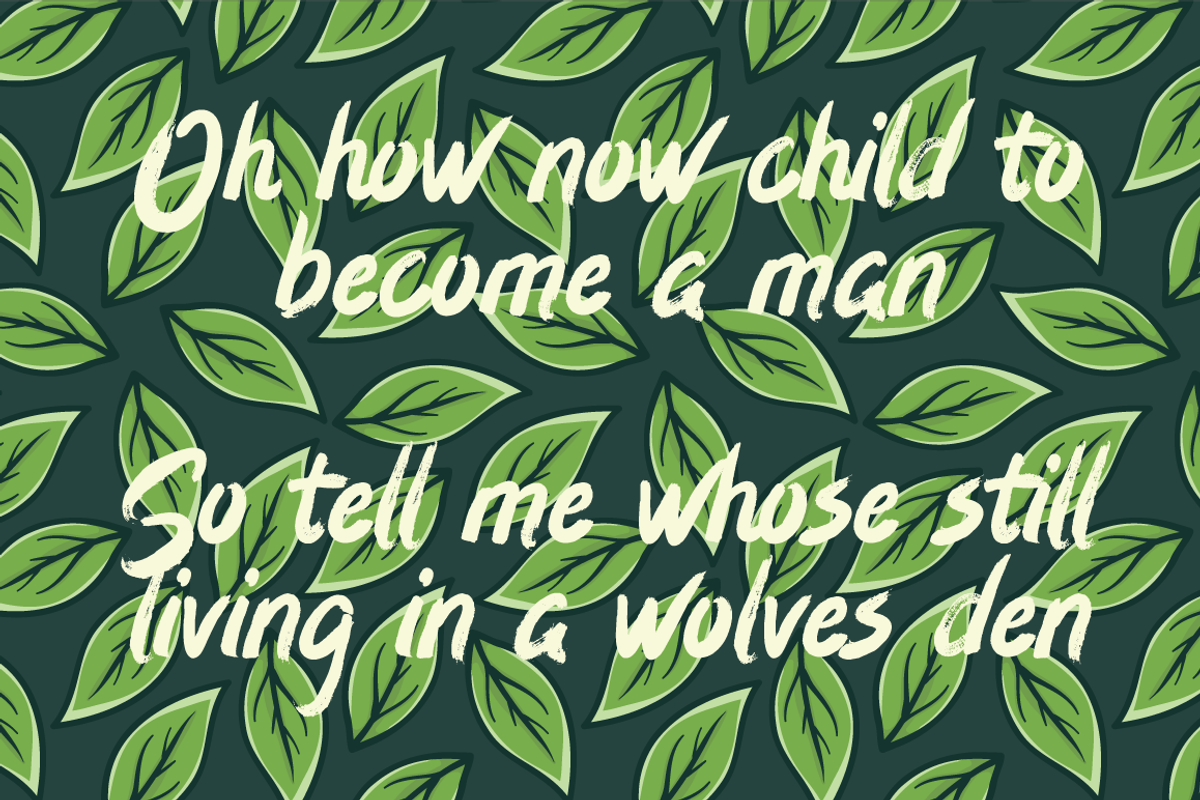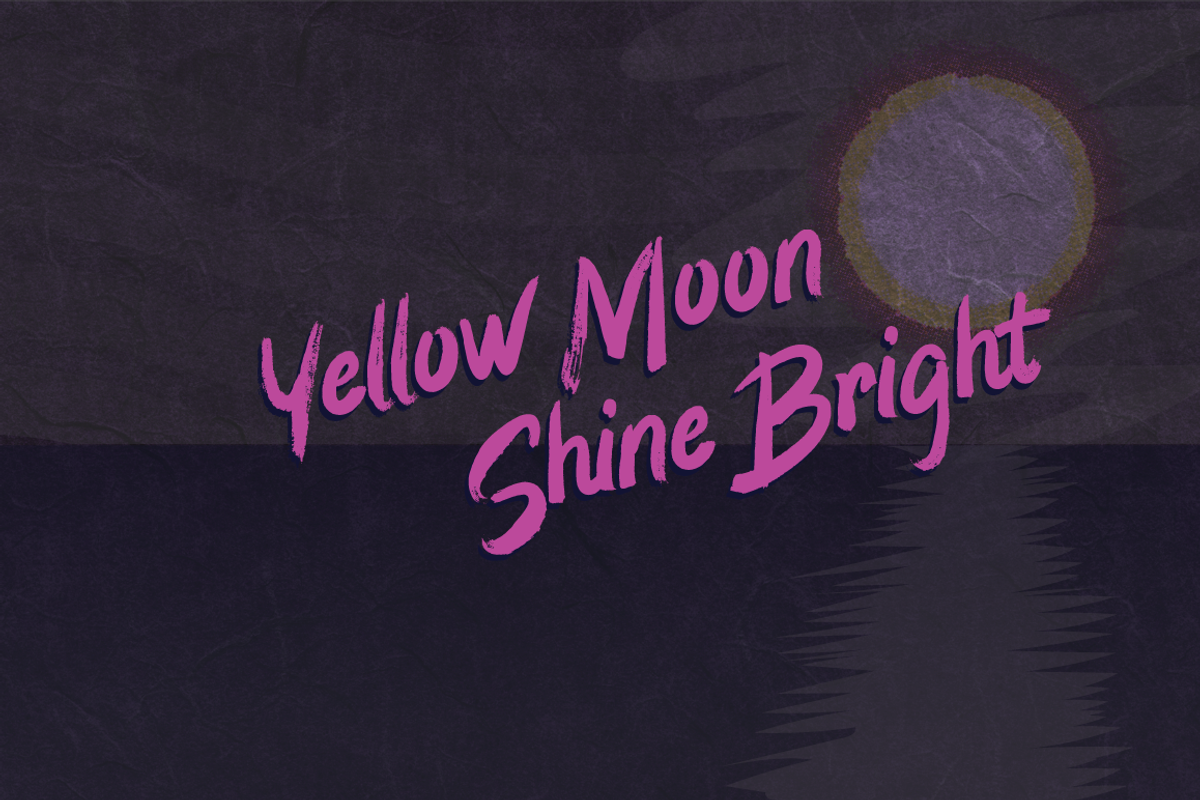
Eisley
Eisley started as an experiment with creating brushes in illustrator. Each purchase comes with your own brush file which can be used in illustrator (or equivalent design programs). I began by drawing each letter and tweaking until each one balanced next to one another. I painted over 50 paint brush strokes to give a variety of different looks to the final letterforms.
Strategically crafted to look as real and as spontaneous as a sign painter might paint up (although possibly running a bit dry on paint giving the end result a vintage and grungy effect). Eisley is perfect for use in any design branding that requires vintage or distressed display lettering. Perfect for creating your own swashes, underlines and other embellishments.
Eisley is perfect for use in any design branding that requires vintage or distressed display text. Great fun to use AND personalize with your own flair.
It contains a full Latin set of glyphs, also includes a few alternate characters.